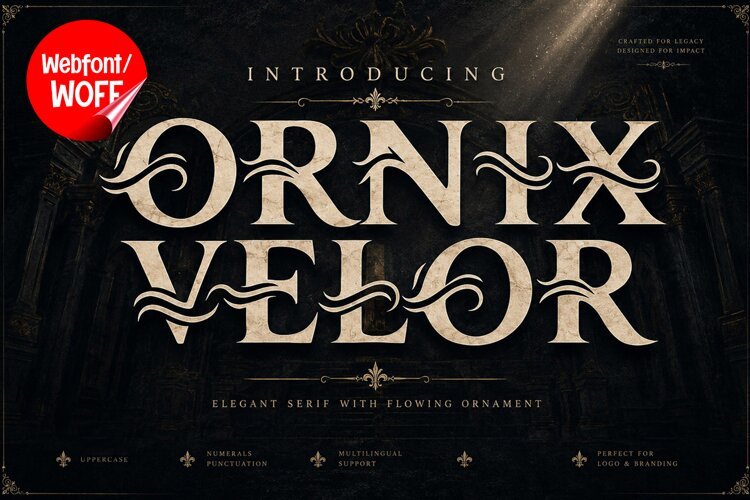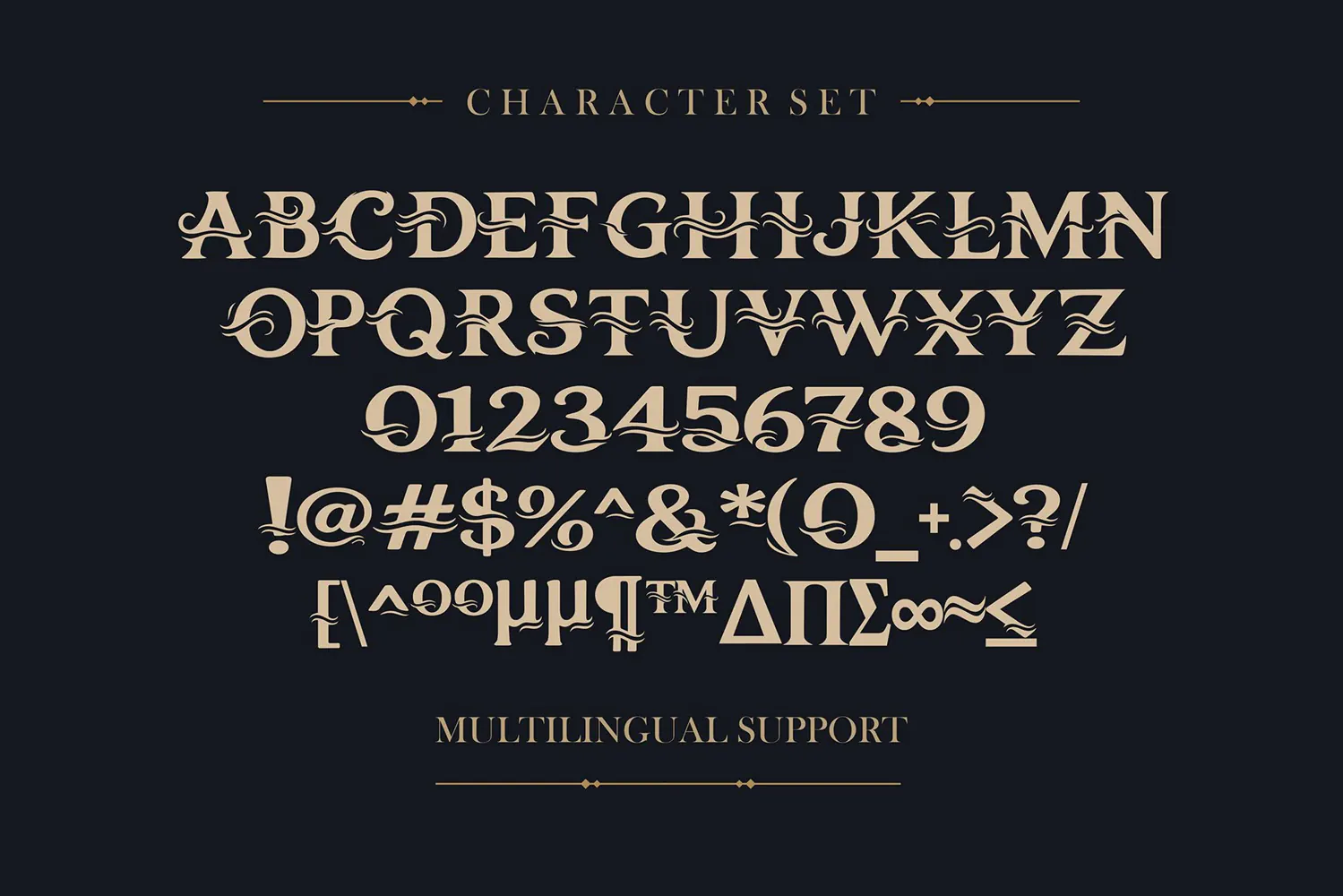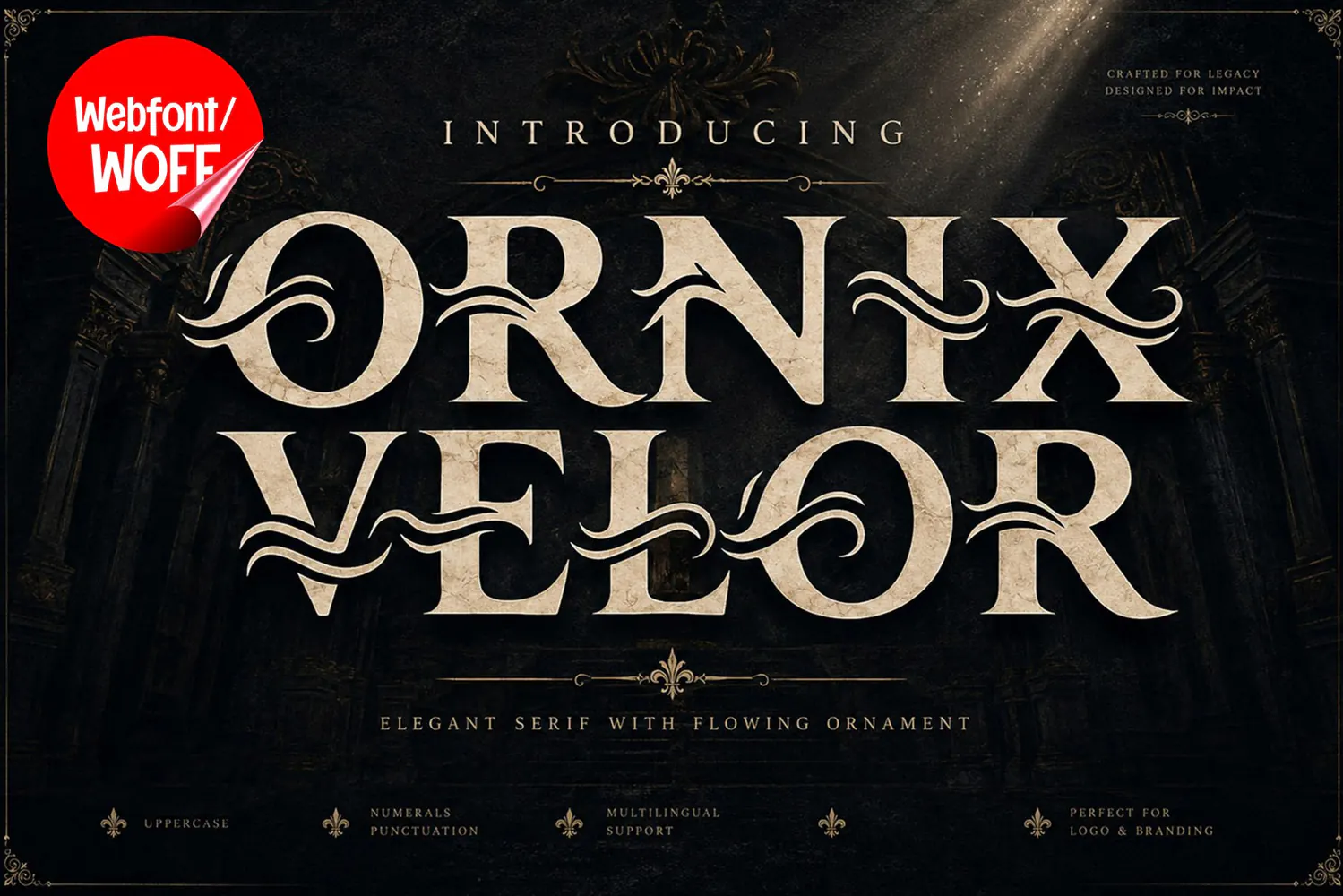
Bring timeless luxury and sophisticated elegance directly to your digital platforms using Ornix Velor Webfont. This ornate serif display typeface with flowing ornamental details is specifically crafted to give websites, high-end fashion portfolios, luxury e-commerce stores, and upscale brand landing pages a majestic, high-class visual appeal.
Transform your website into a digital showcase of elegance and luxury with the exquisite style of Ornix Velor!